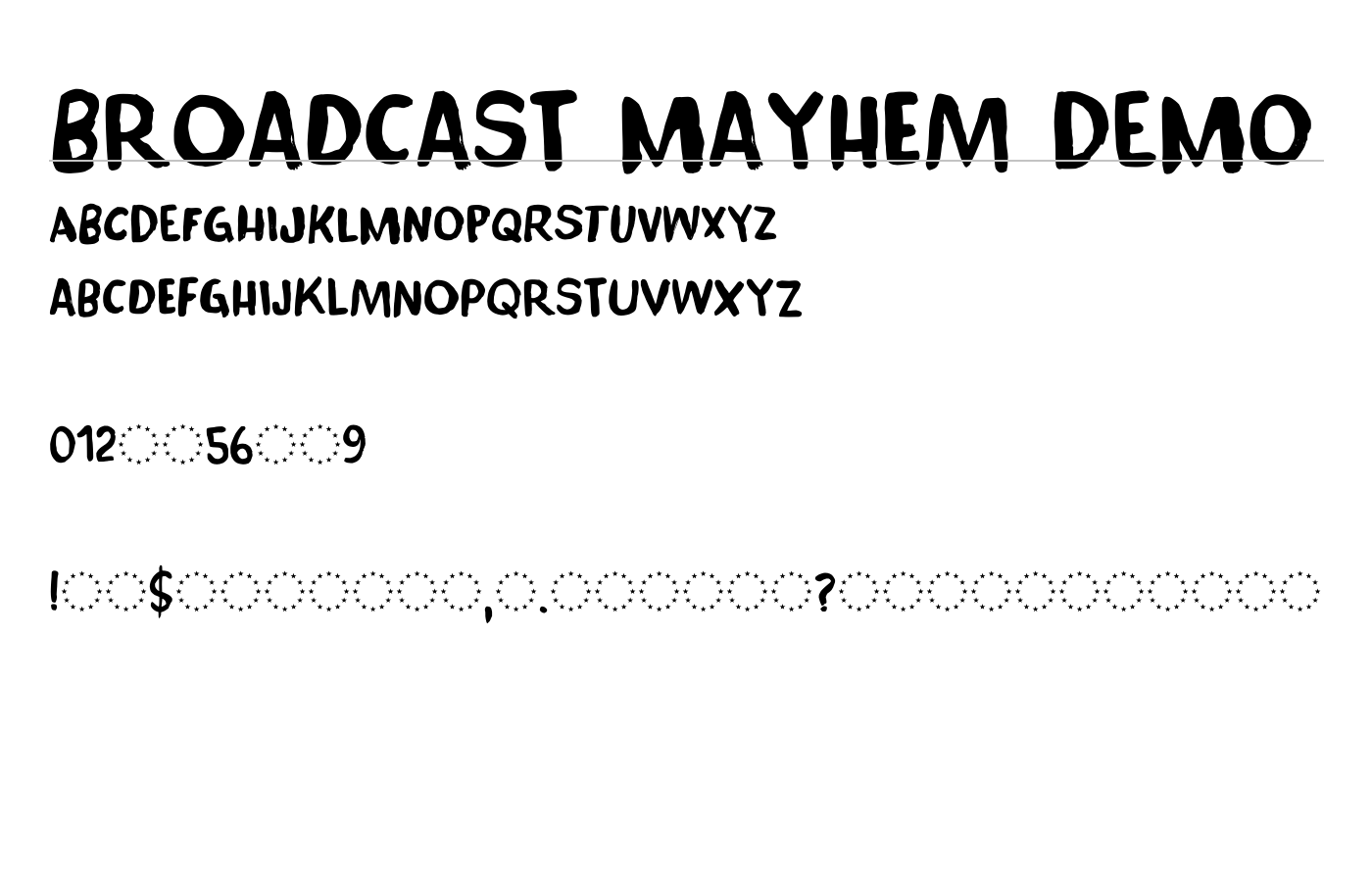
Broadcast Mayhem DEMO is a bold and playful sans serif font with a hand-drawn, slightly quirky feel. Its uneven strokes and irregular shapes give it an energetic and informal personality, making it ideal for creative projects, fun branding, or casual headlines that need a distinctive, attention-grabbing look. This font works well when you want to convey a lively and approachable vibe with a touch of spontaneity.
Broadcast Mayhem DEMO Font
About Broadcast Mayhem DEMO Font